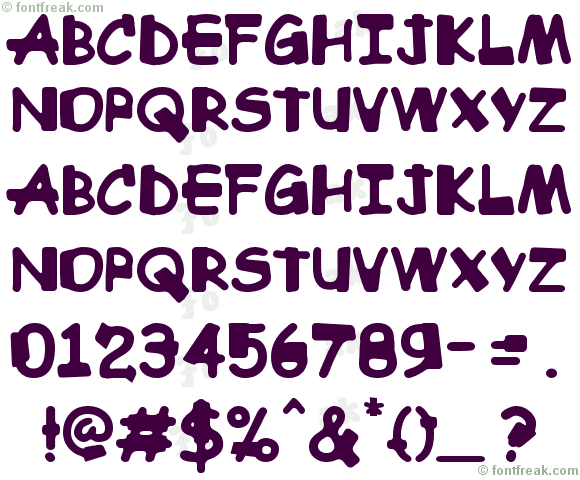
Comic Sandchez
Comic Sandchez, crafted by the talented woodcutter Manero, is a delightful display typeface that brings a playful and quirky vibe to any design project. This font is characterized by its bold, rounded strokes that provide a friendly and approachable appearance. The uneven stroke weight adds to its whimsical nature, while the generous spacing between letters enhances readability, making it a perfect choice for eye-catching headlines and fun graphics.
The Comic Sandchez font shines in various applications, particularly in contexts where a light-hearted tone is desired. It’s an excellent fit for children's book covers, where its playful character can engage young readers. Additionally, this typeface works wonderfully in restaurant menus, especially for casual dining spots that want to convey a relaxed atmosphere. Movie posters targeting comedies or family films will also benefit from its lively and energetic style. Moreover, Comic Sandchez is ideal for social media graphics, allowing content creators to capture attention with its unique flair.
What sets Comic Sandchez apart is its ability to blend humor and style seamlessly. It invites creativity while maintaining clarity, making it a versatile choice for various design needs. Whether you’re designing a playful poster or a charming invitation, Comic Sandchez adds a distinctive touch that is sure to leave a lasting impression.